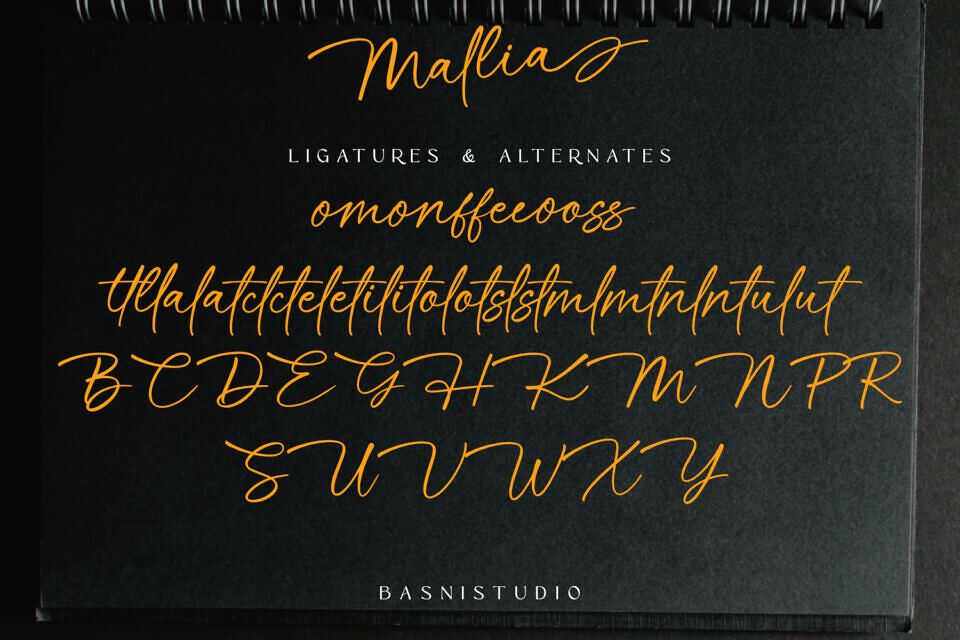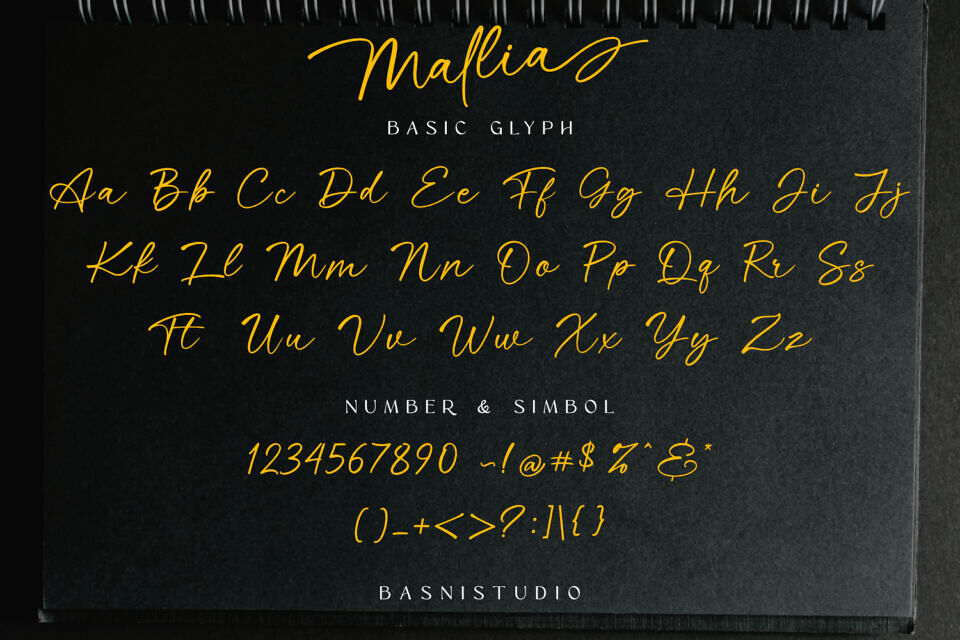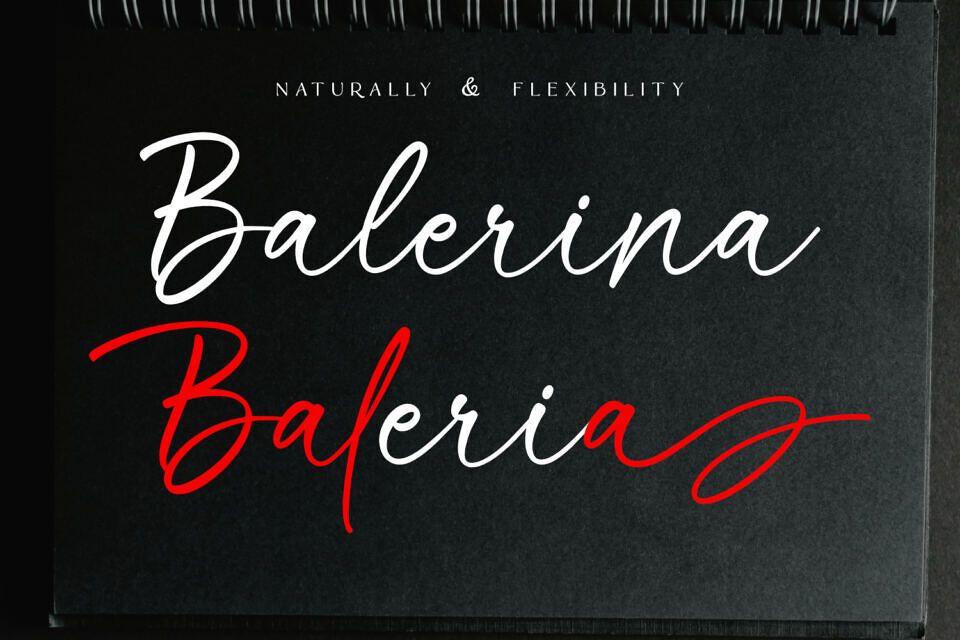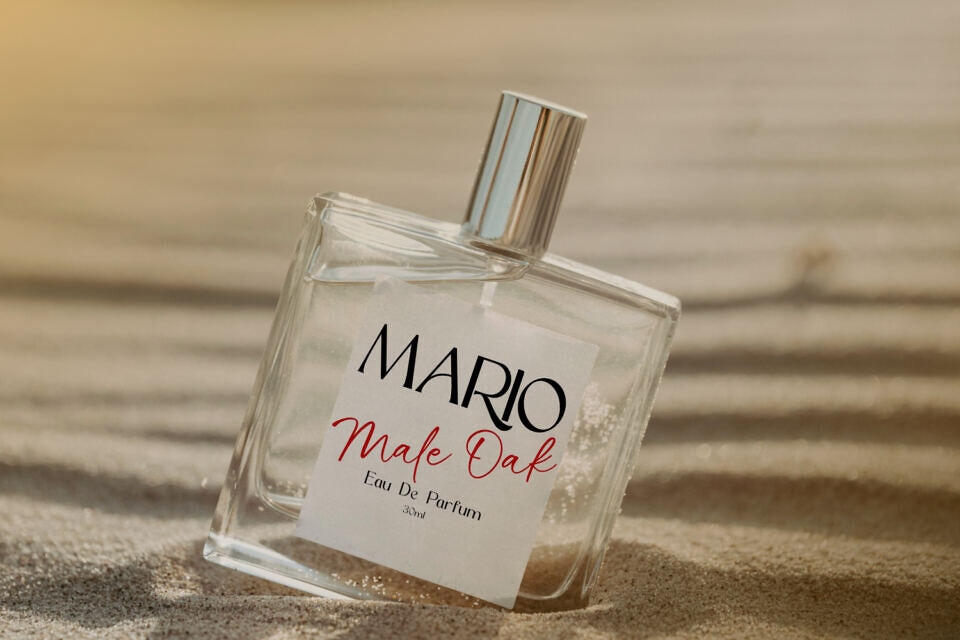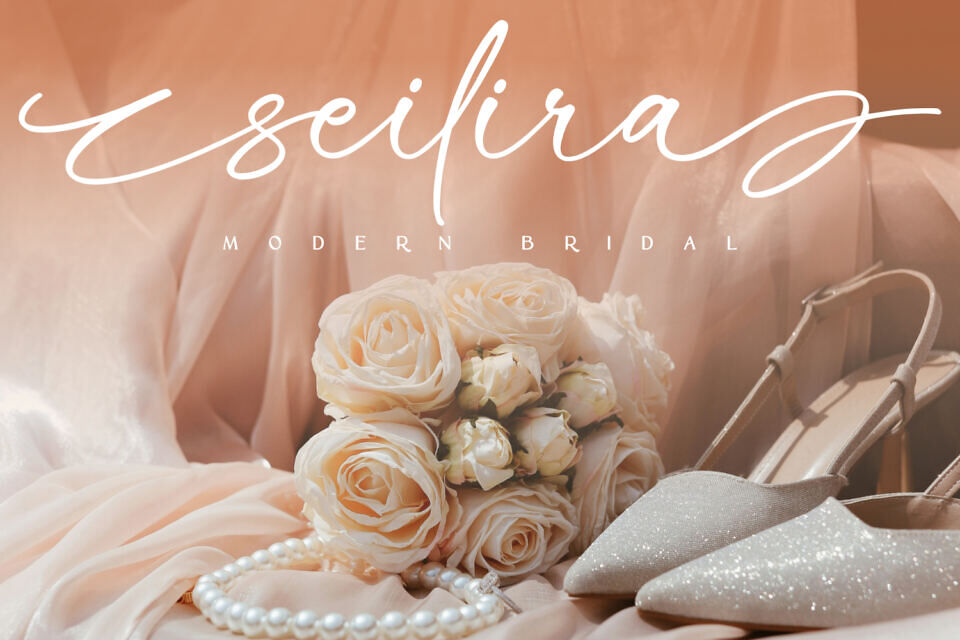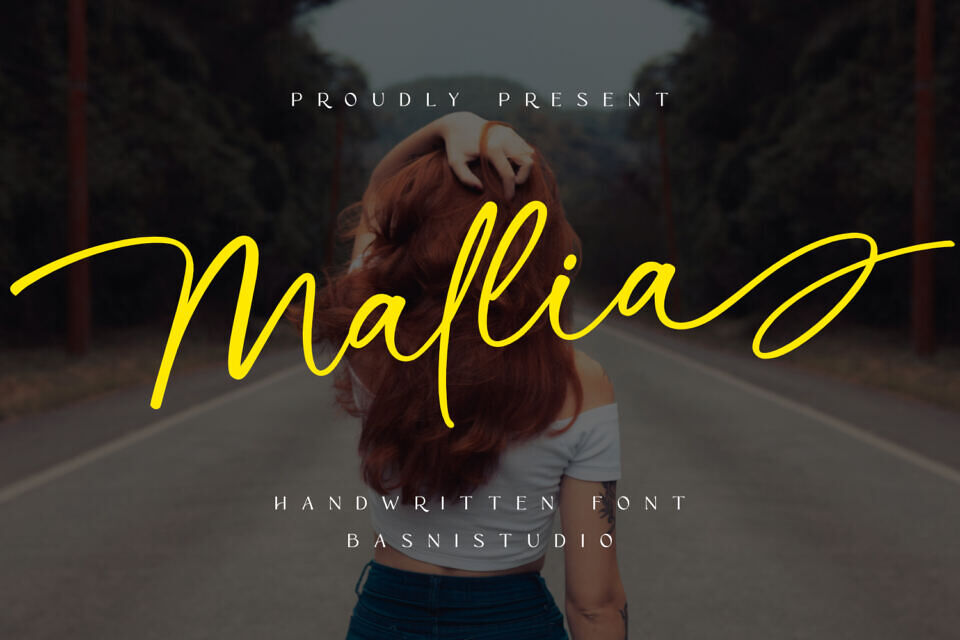
Mallia Font
Introducing Mallia, a Flawless handwritten font crafted with authentic Brush for Natural & Casual touch for everything from branding and social media to invitations and packaging.
Whether you’re building a powerful brand identity or crafting a standout design, Mallia a Handwritting Font Created with authentic Brush for Natural & Casual look gives you the creative edge you need.
Designed by: Basnistudio